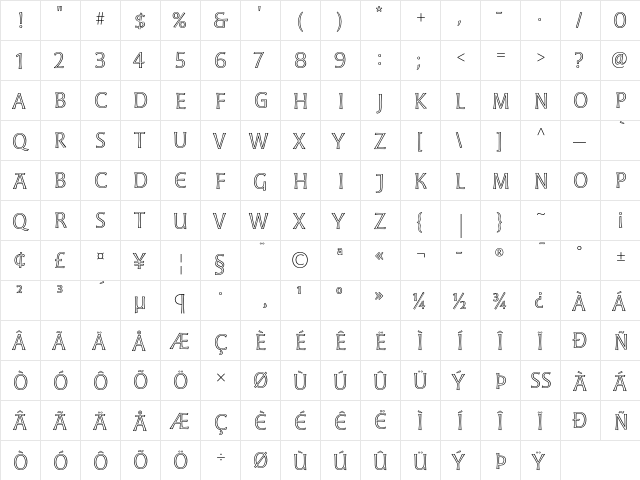
Moonglow Light Font Preview
Moonglow Light
Moonglow Light Font Details
| Designer | Michael Harvey |
Design Context for Moonglow Typeface
Moonglow is a composed and adaptable typeface that performs quietly and consistently across a wide range of design contexts. Its slender proportions lend an understated elegance to any composition.